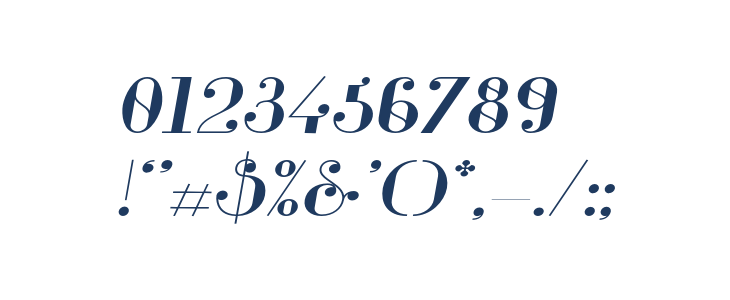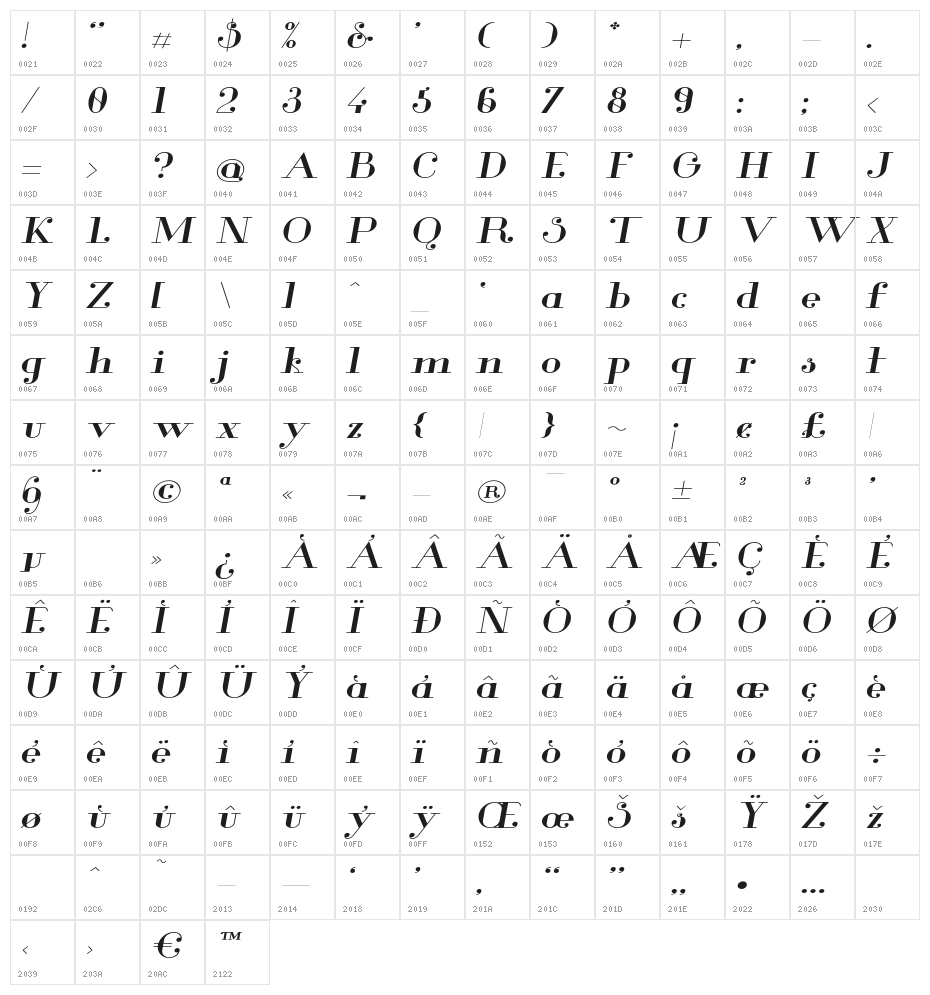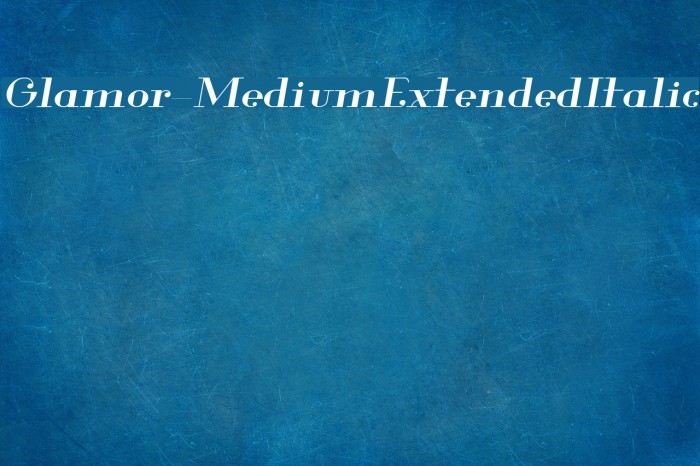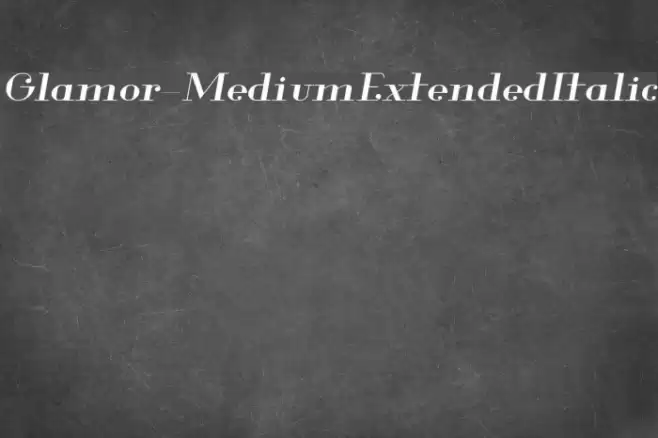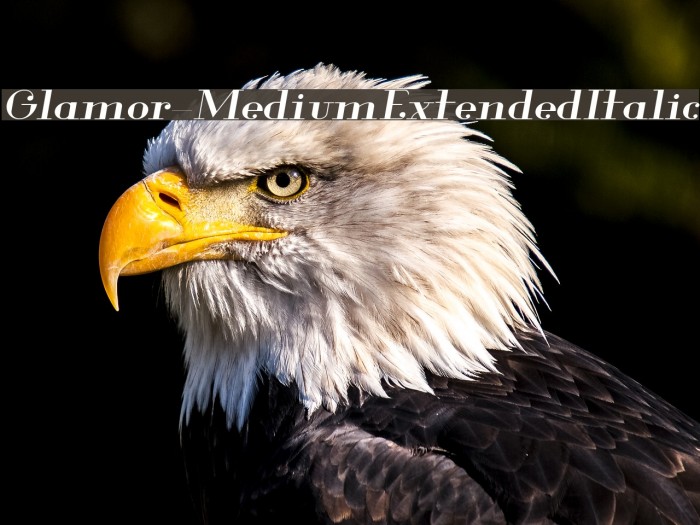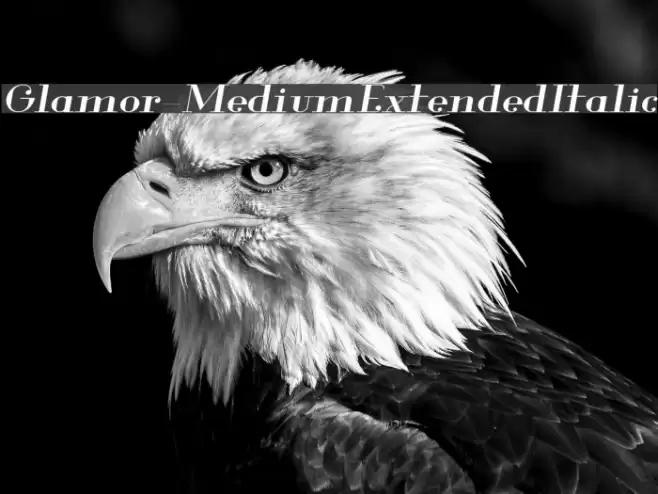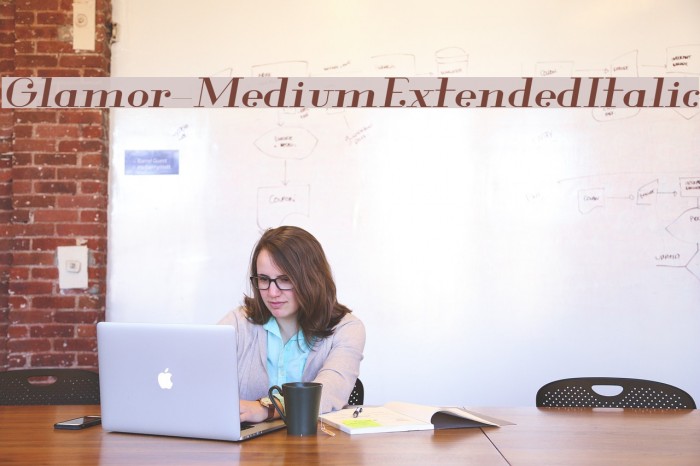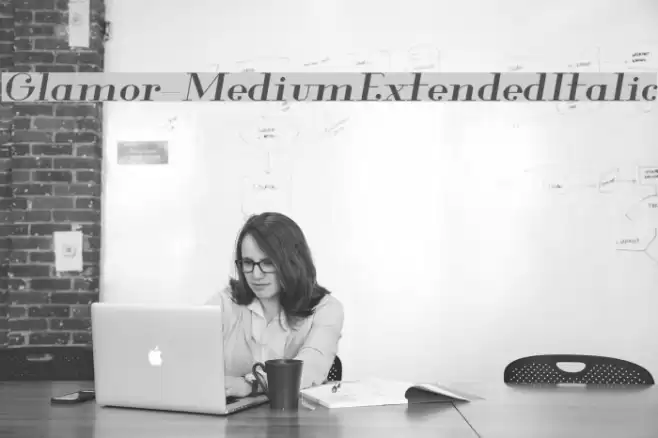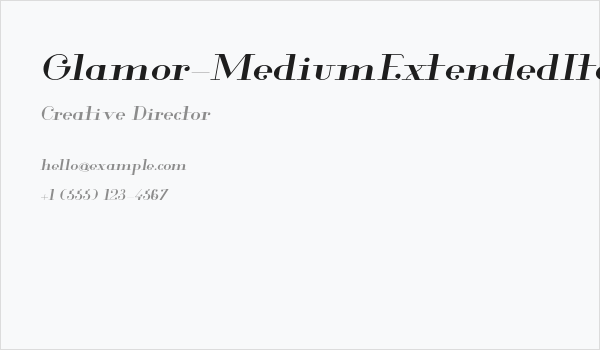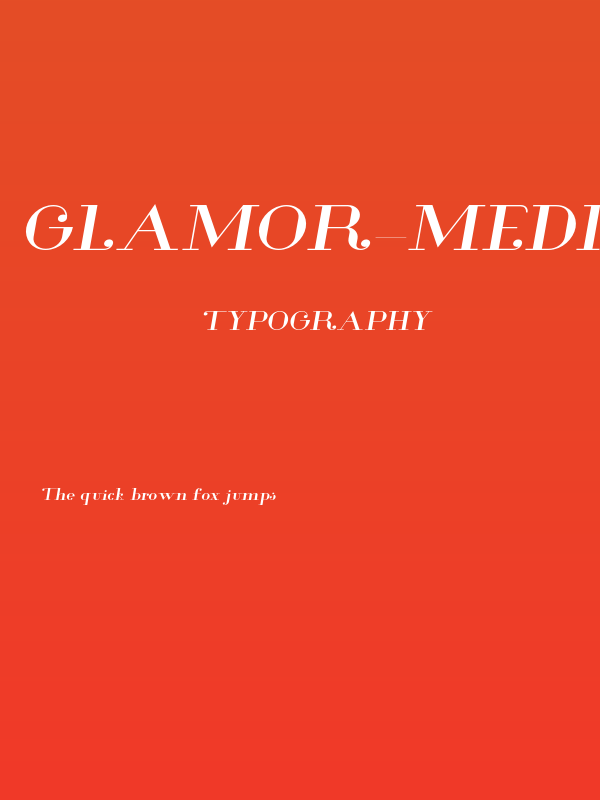
Glamor-MediumExtendedItalic Font
Glamor-MediumExtendedItalic Description
This elegant typeface features a sophisticated blend of modern and classic elements, characterized by its medium weight and extended width. The italic style adds a dynamic and graceful touch, making it suitable for a variety of design applications. The high contrast between thick and thin strokes enhances its readability and visual appeal. The characters exhibit a refined curvature, particularly noticeable in the lowercase letters, which adds a sense of fluidity and movement. The uppercase letters maintain a strong presence, while the numerals and special characters are designed with a consistent style, ensuring a cohesive look across all text elements.
| Overall Style | Elegant and sophisticated |
| Use Case | Headlines, Branding, Editorial |
| Proposed Projects | Ideal for luxury branding, editorial design, fashion magazines, and elegant invitations. |